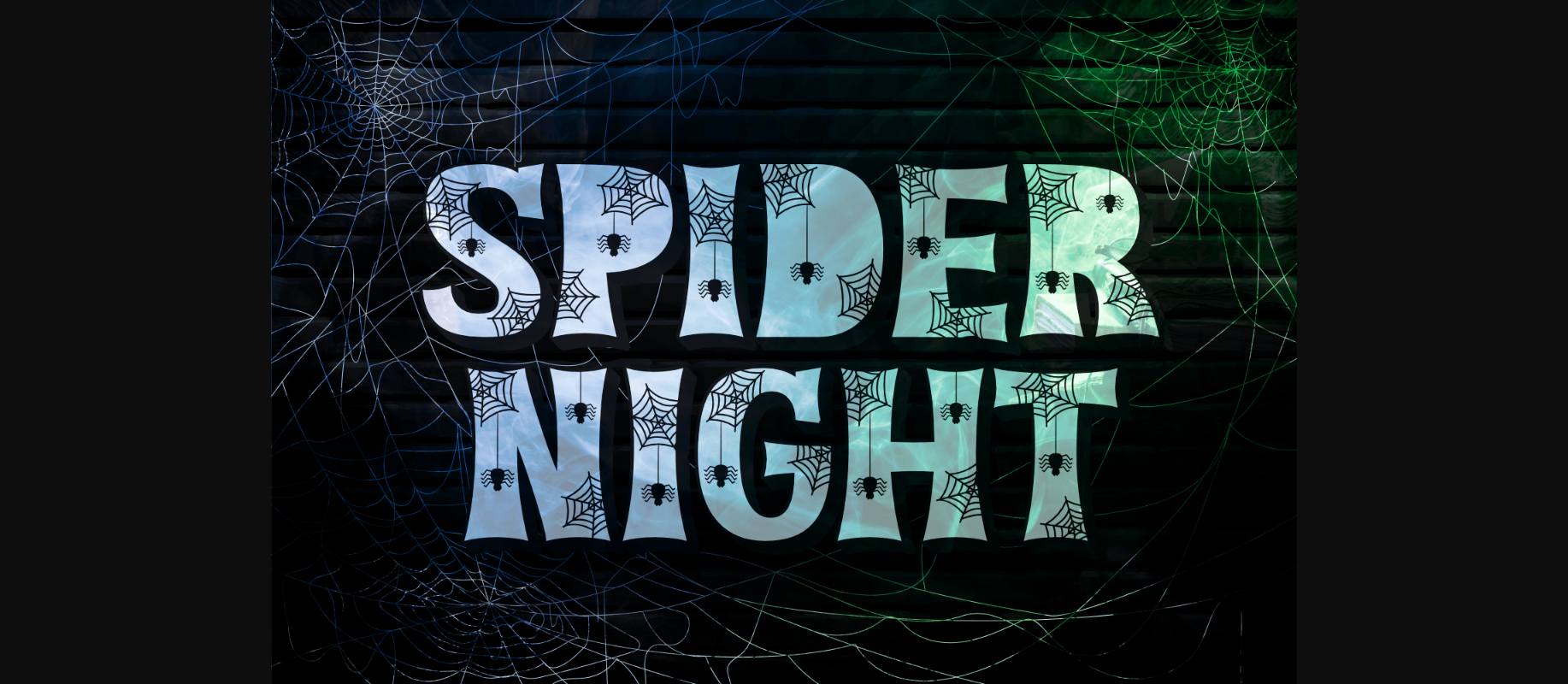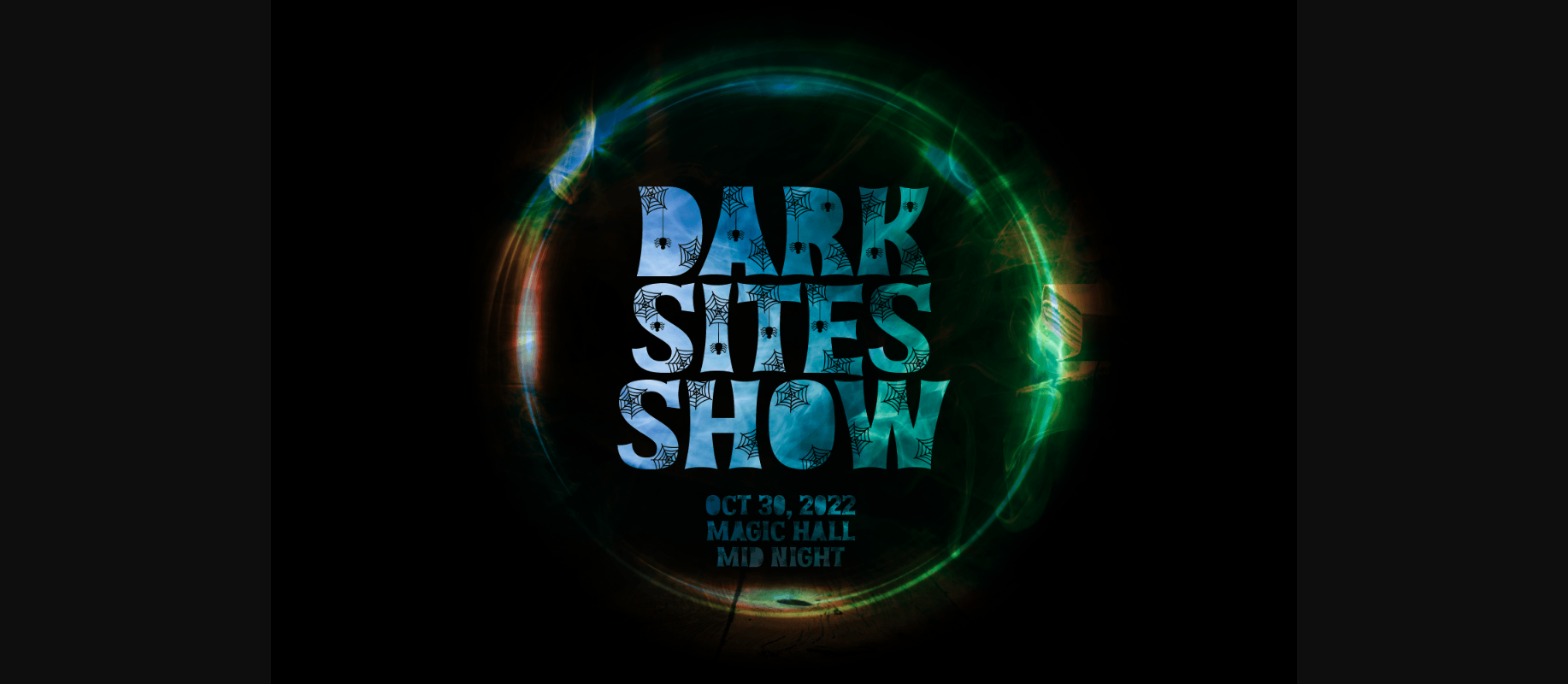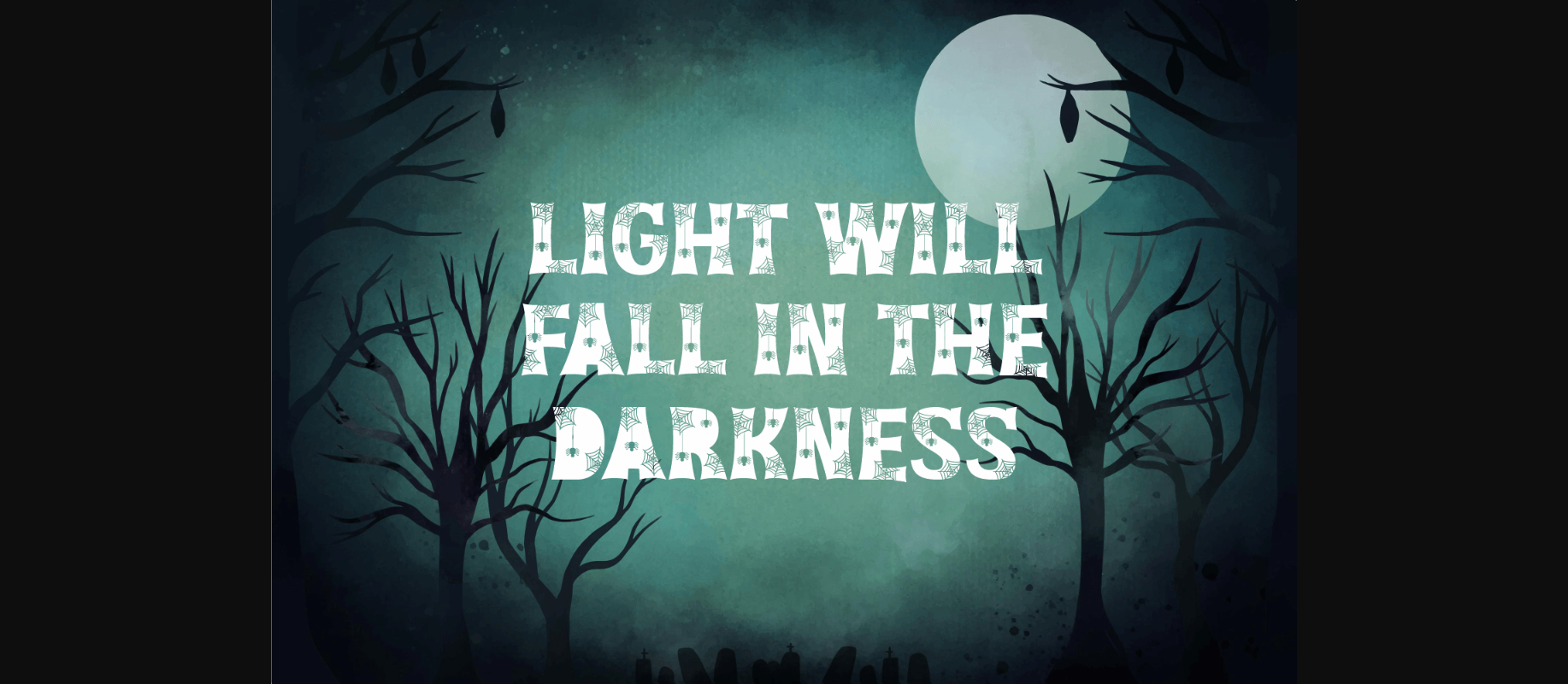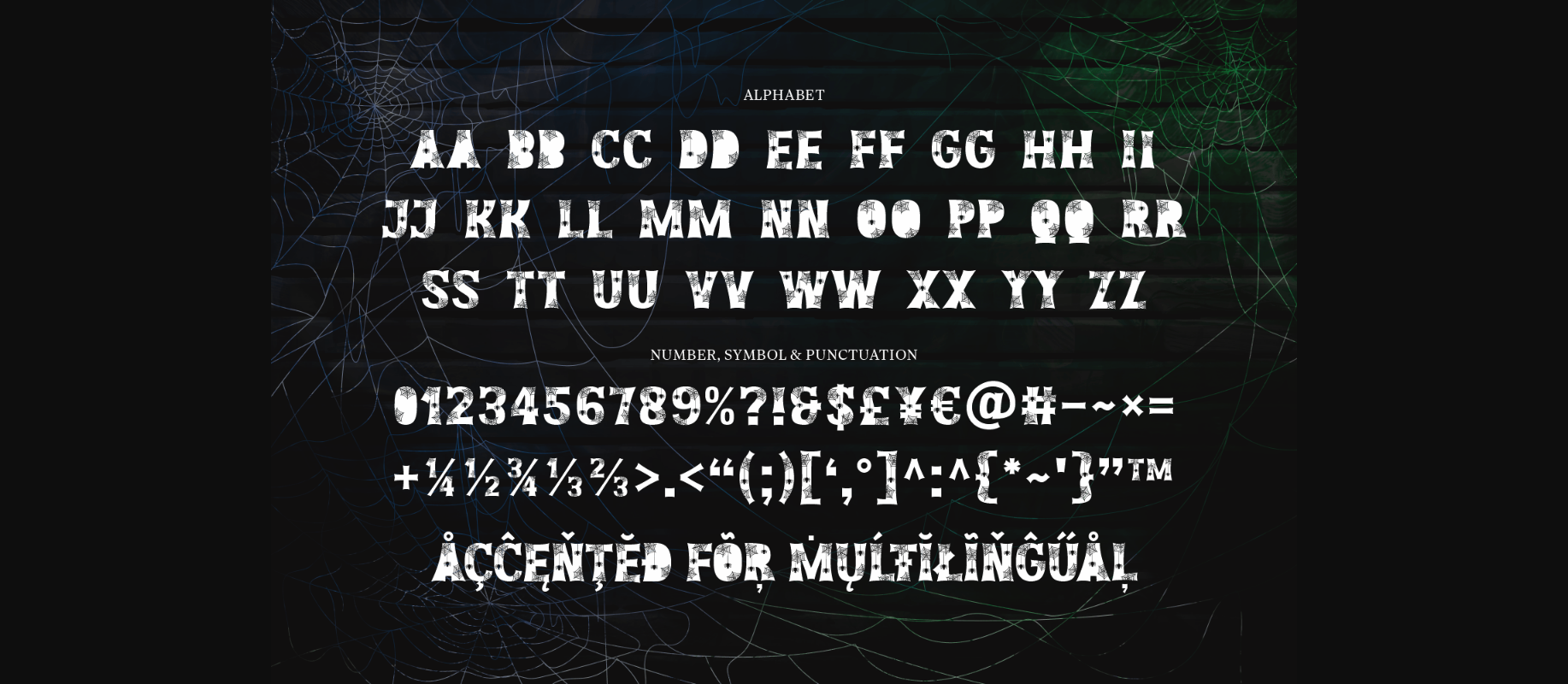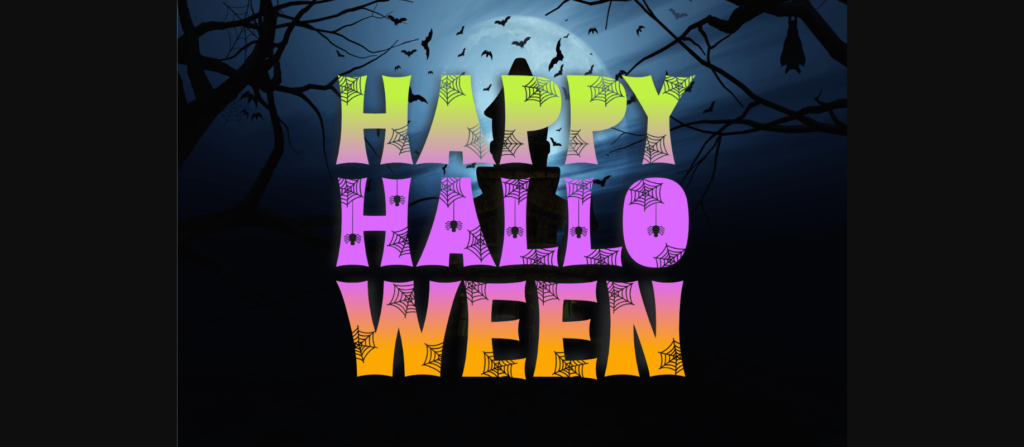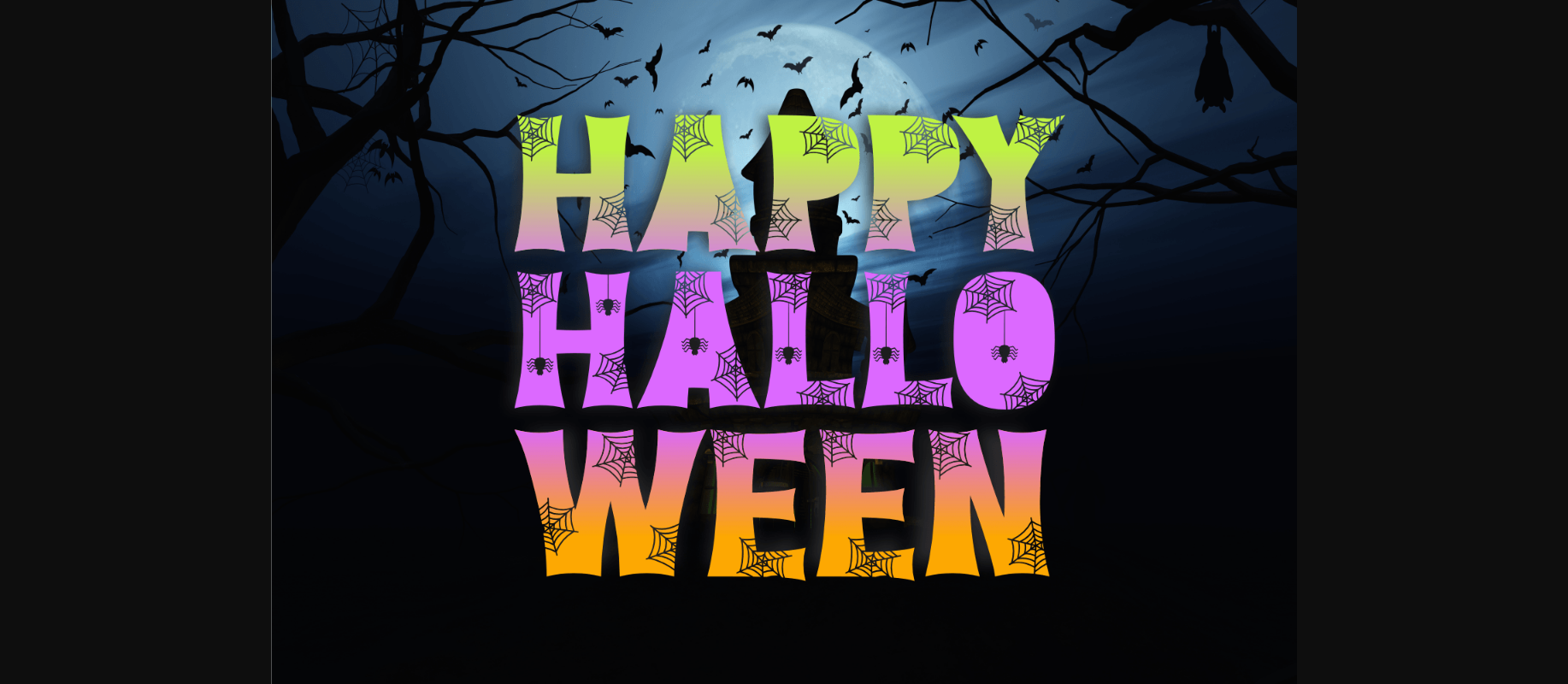
Spider Night Font
About Spider Night Font
Spider Night is a spooky and playful decorative font. It will make the perfect match for your next Halloween-related project, or any other design that needs a touch of mystery and freakiness! Use it for online games, stationery, school supplies font, poster, movie title, youtube covers, thumbnails, social media page covers, and many more.